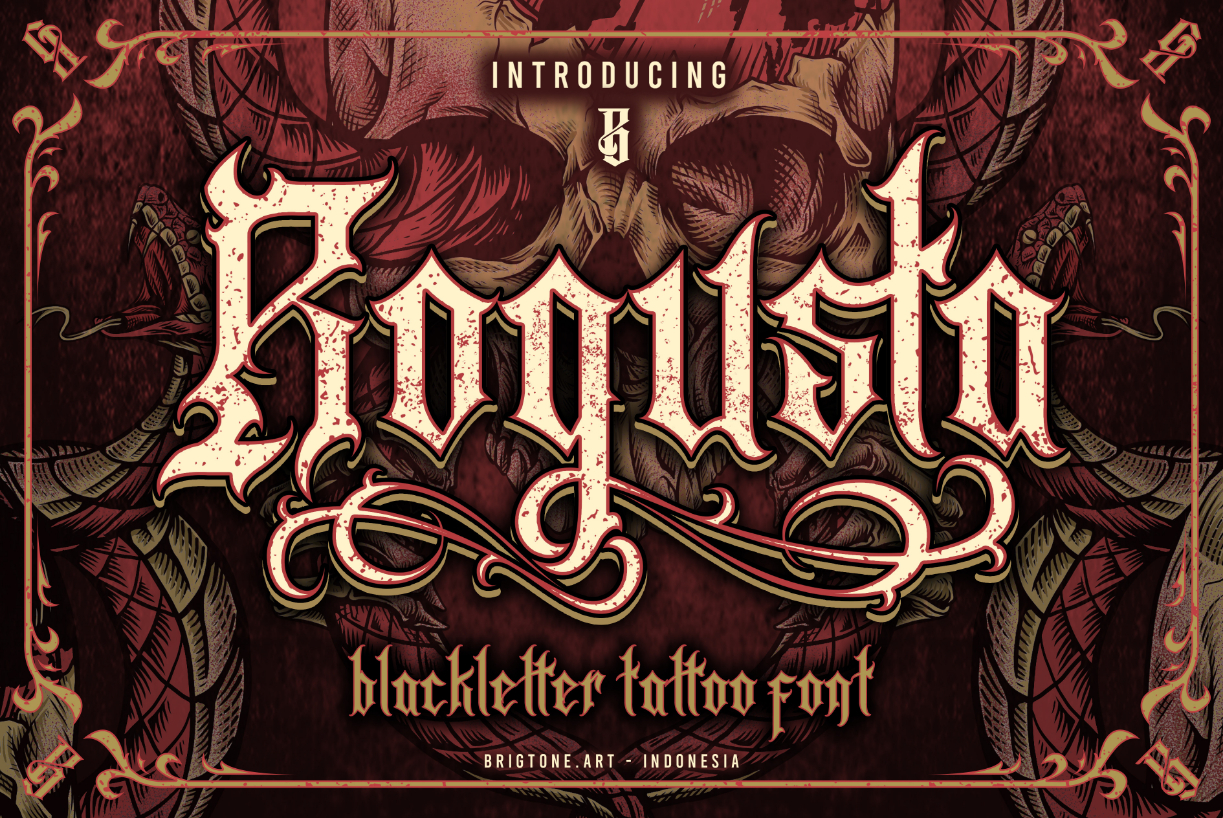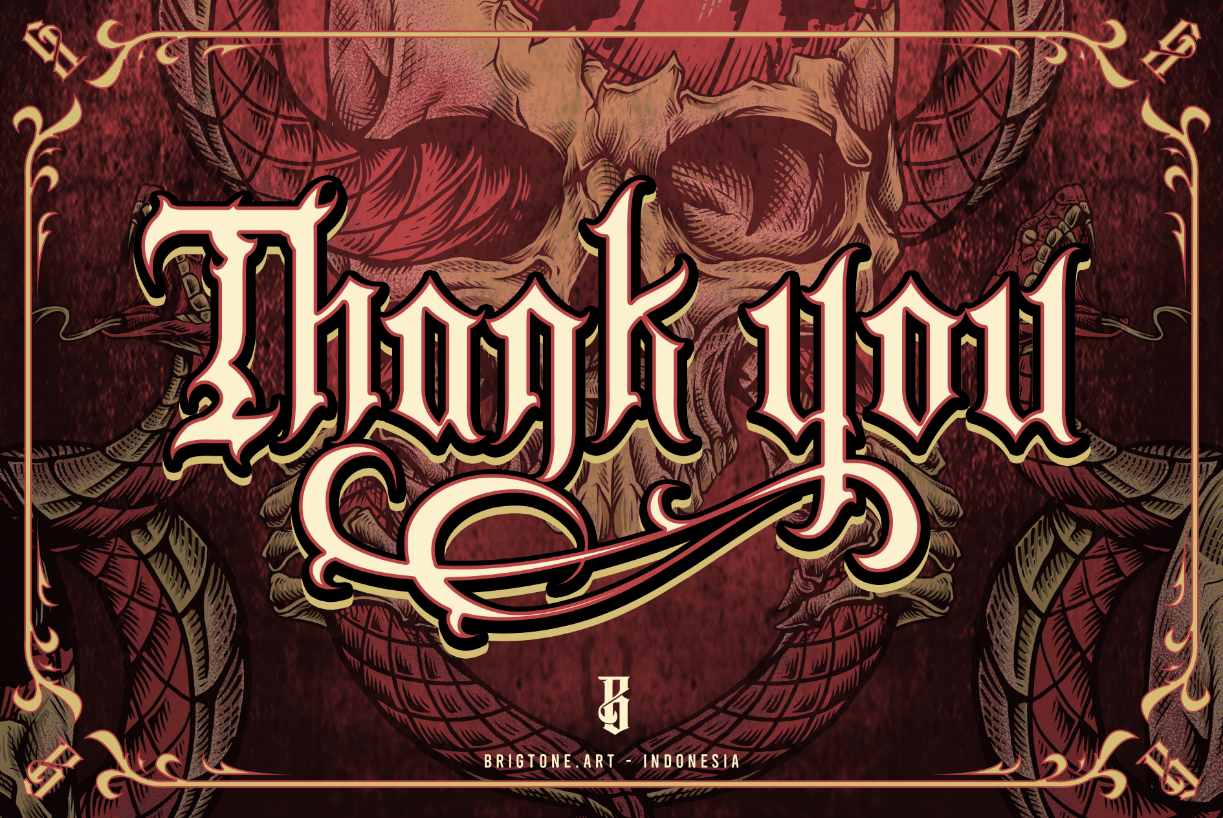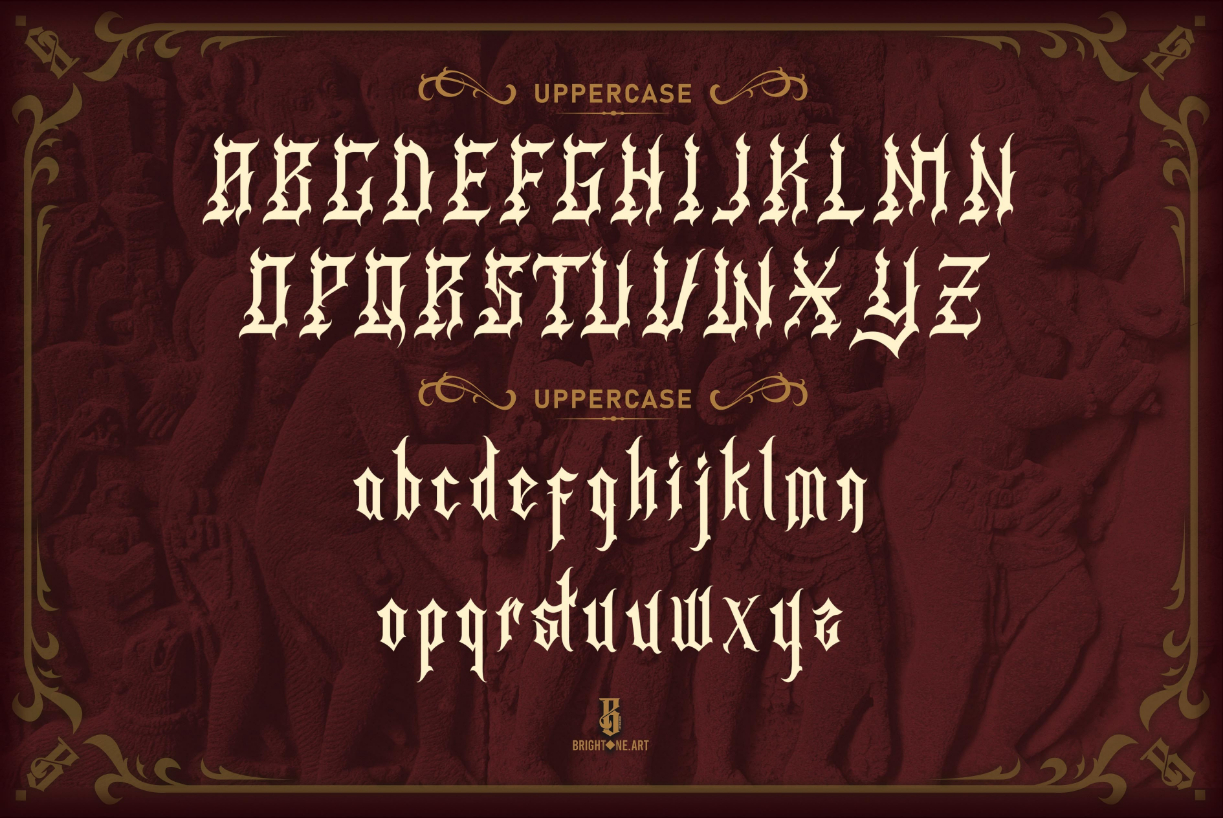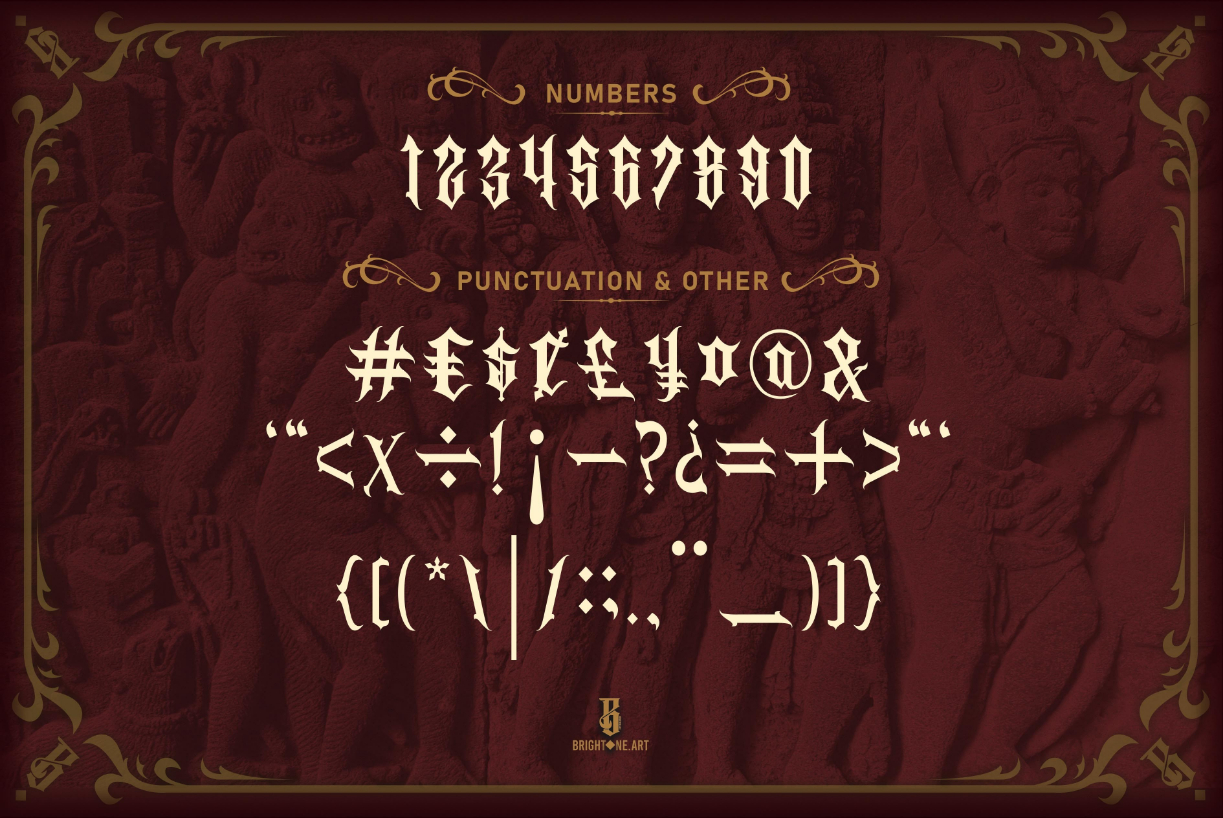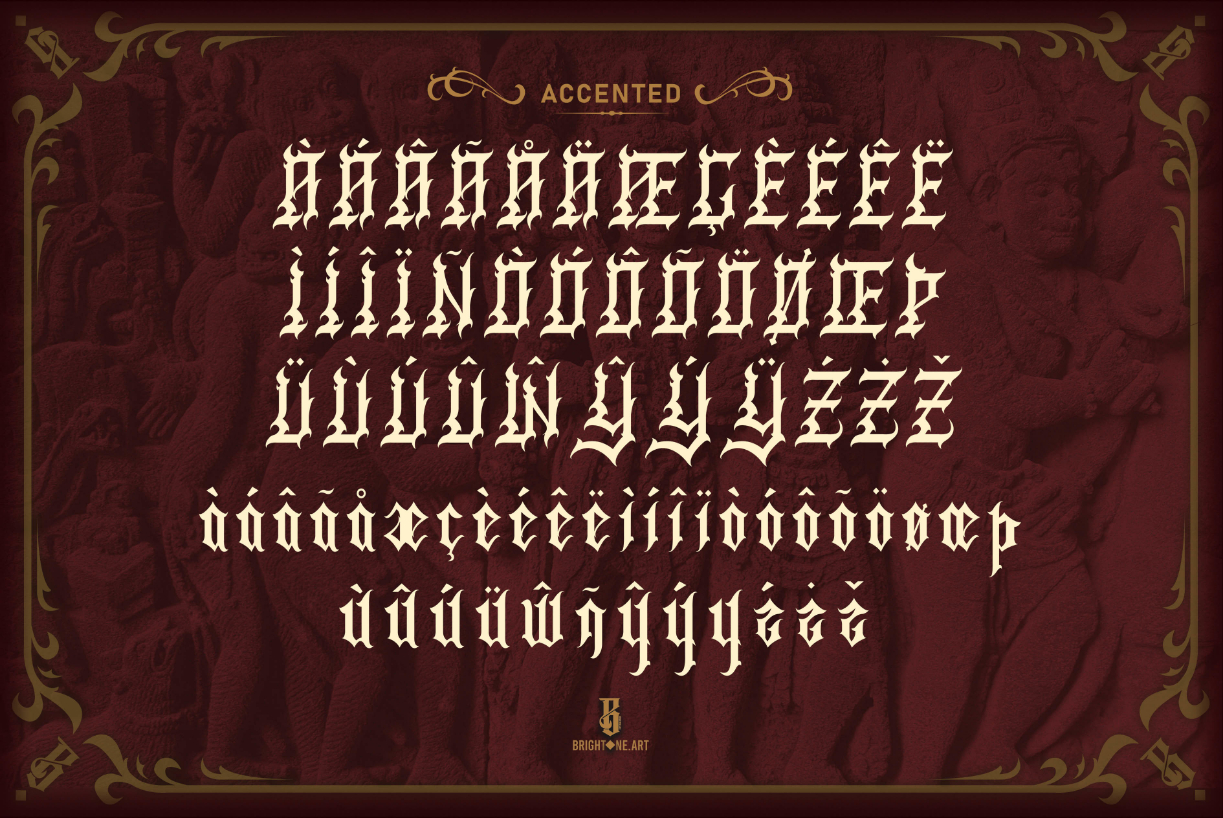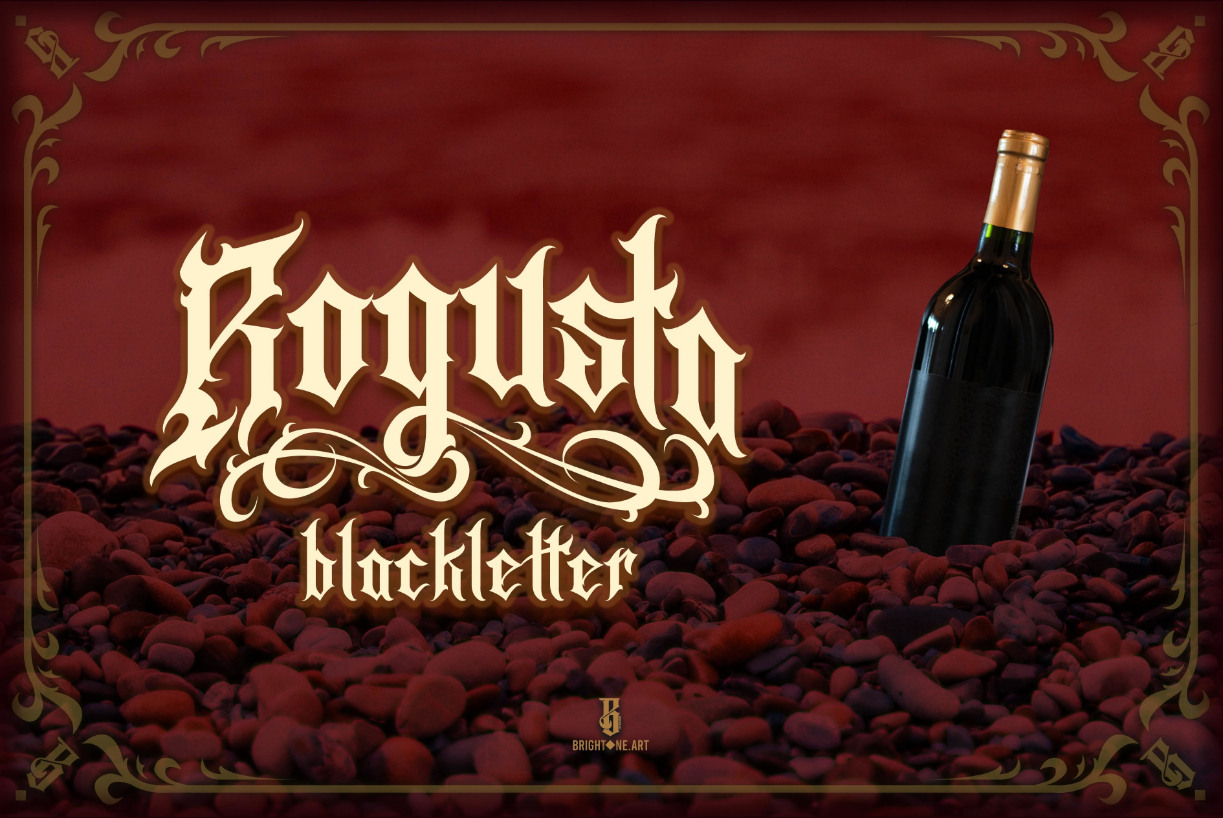
Rogusta Font
About Rogusta Font
Rogusta is a bold and authentic blackletter font. This font is neatly crafted and highly detailed. Add the assertive Rogusta to your formal designs and notice how they instantly stand out.